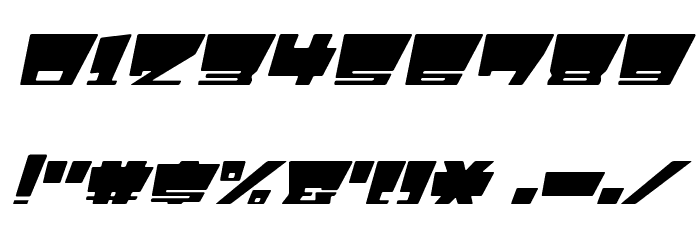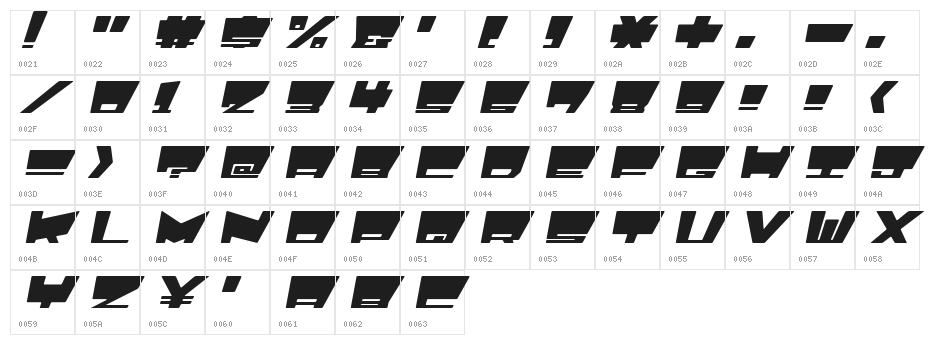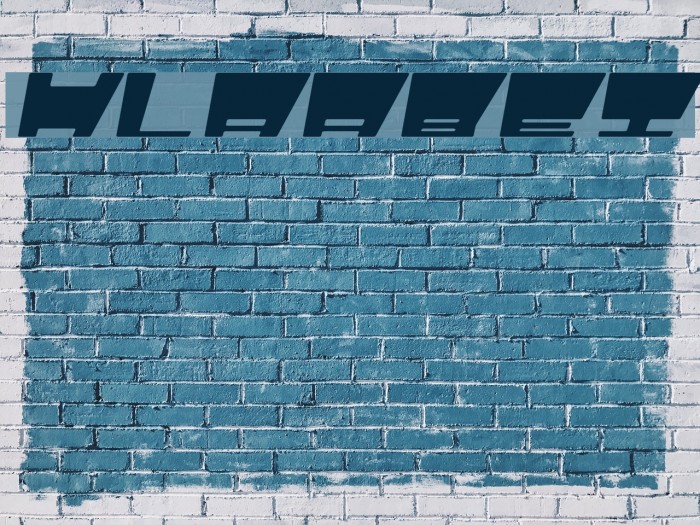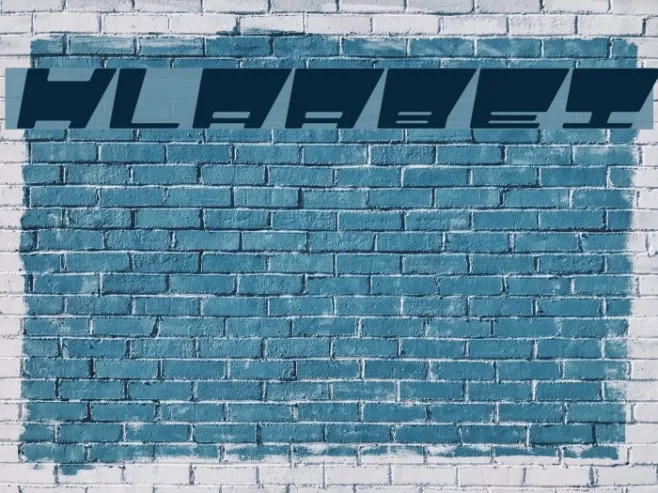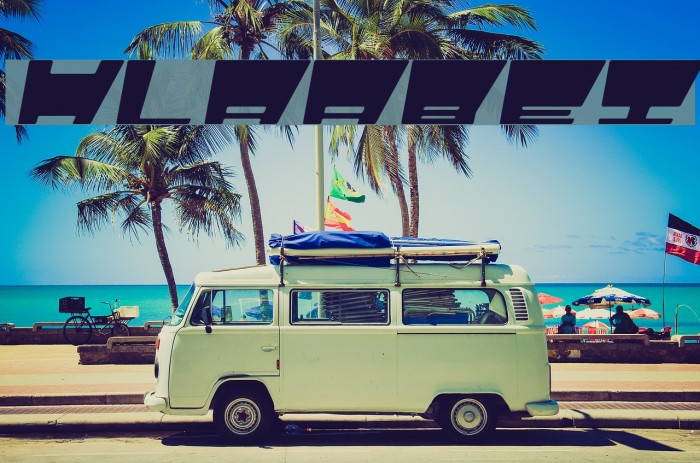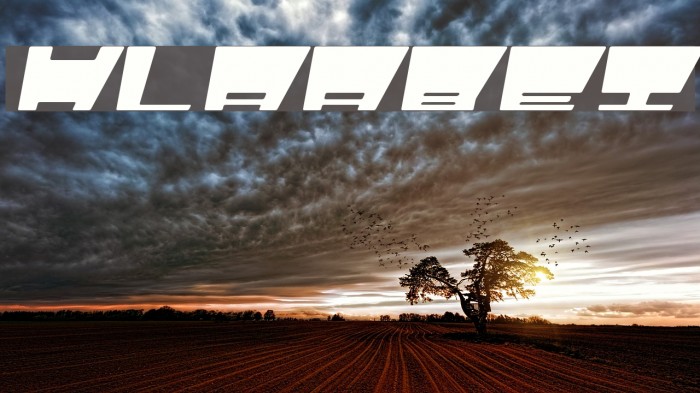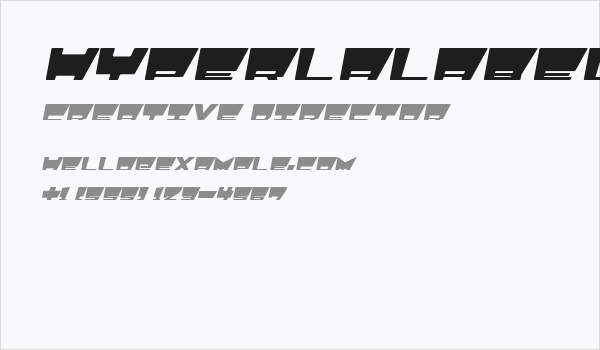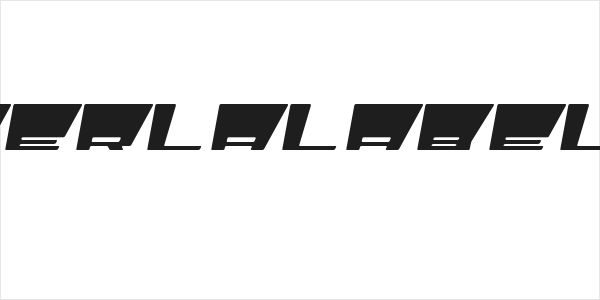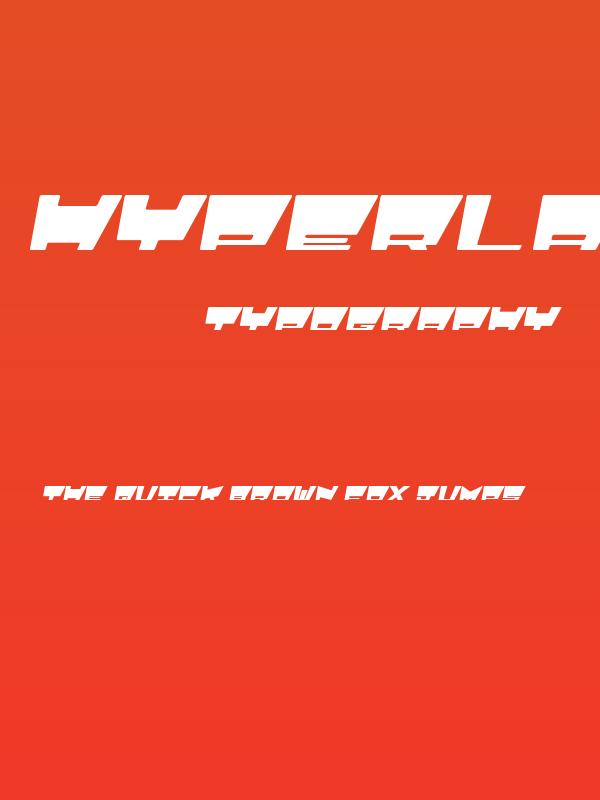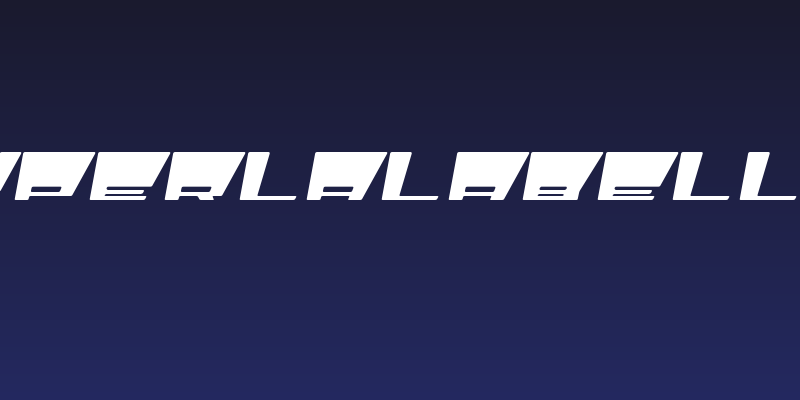
HyperLalabellEI Font
HyperLalabellEI Description
This font features a bold and dynamic design with sharp, angular edges and a futuristic aesthetic. The characters are heavily stylized, giving them a unique and aggressive appearance. The uppercase and lowercase letters maintain a consistent style, with the lowercase slightly smaller but equally bold. Numbers and special characters follow the same design principles, ensuring uniformity across all glyphs. The font's geometric shapes and thick lines make it stand out, ideal for projects requiring a modern and edgy look.
Overall StyleFuturistic
Proposed ProjectsIdeal for sci-fi themed designs, video game titles, posters, and branding that requires a modern, edgy look.